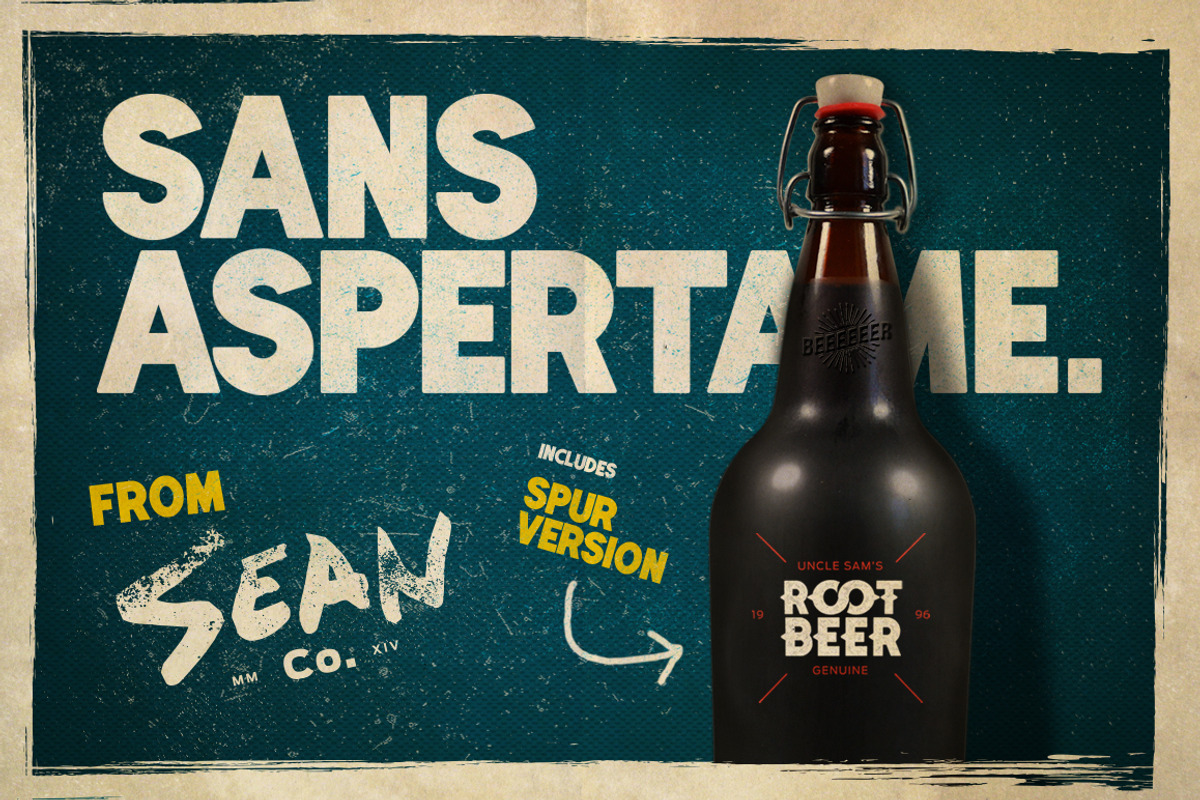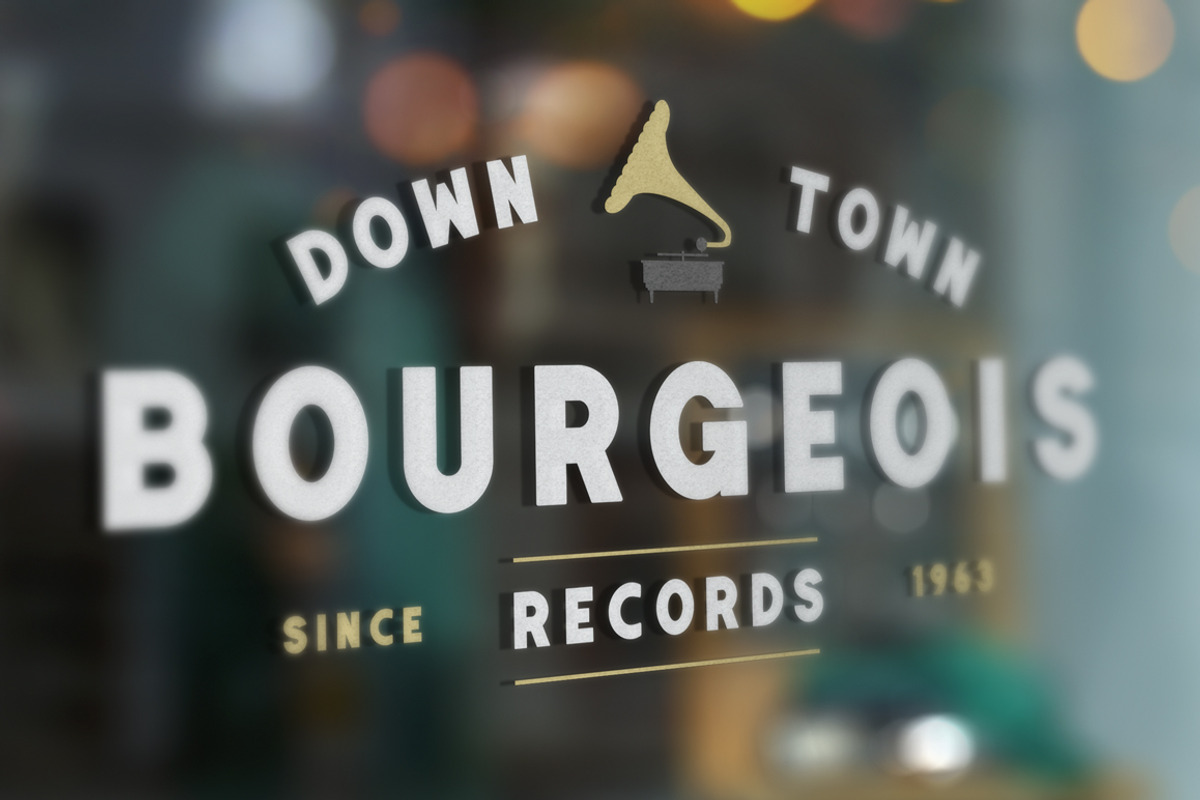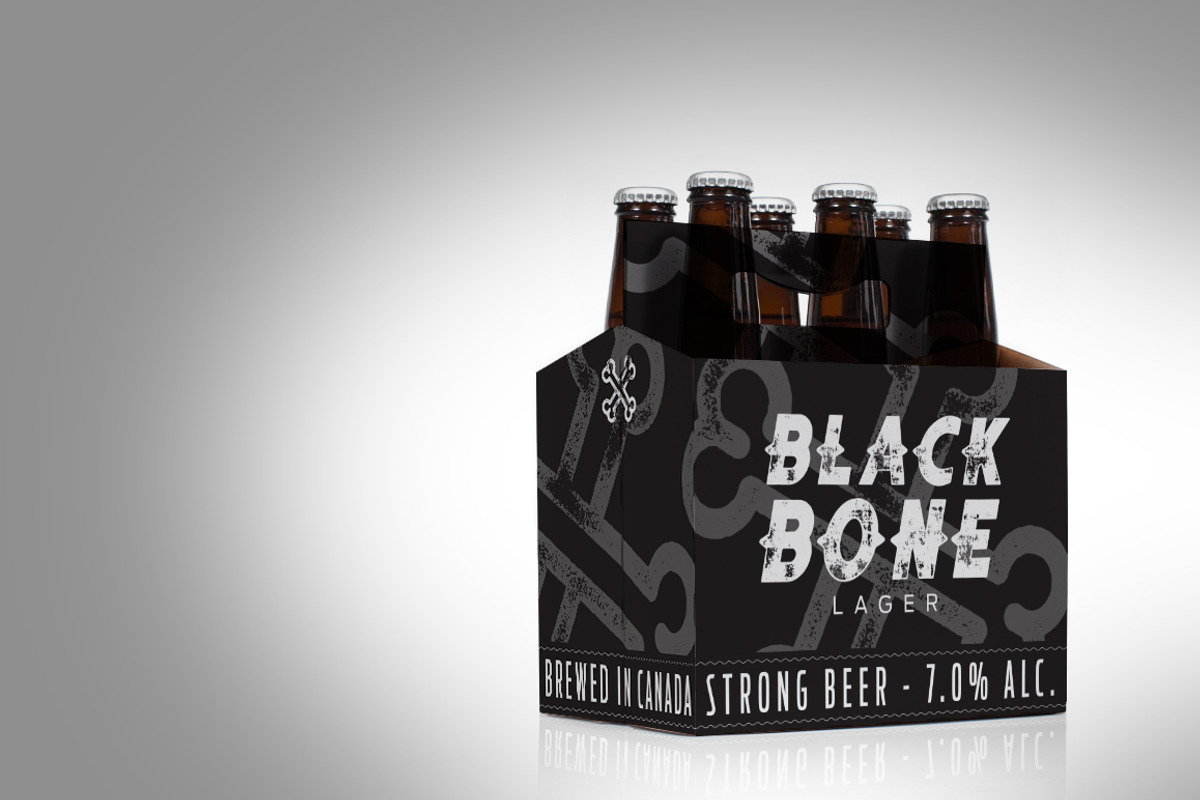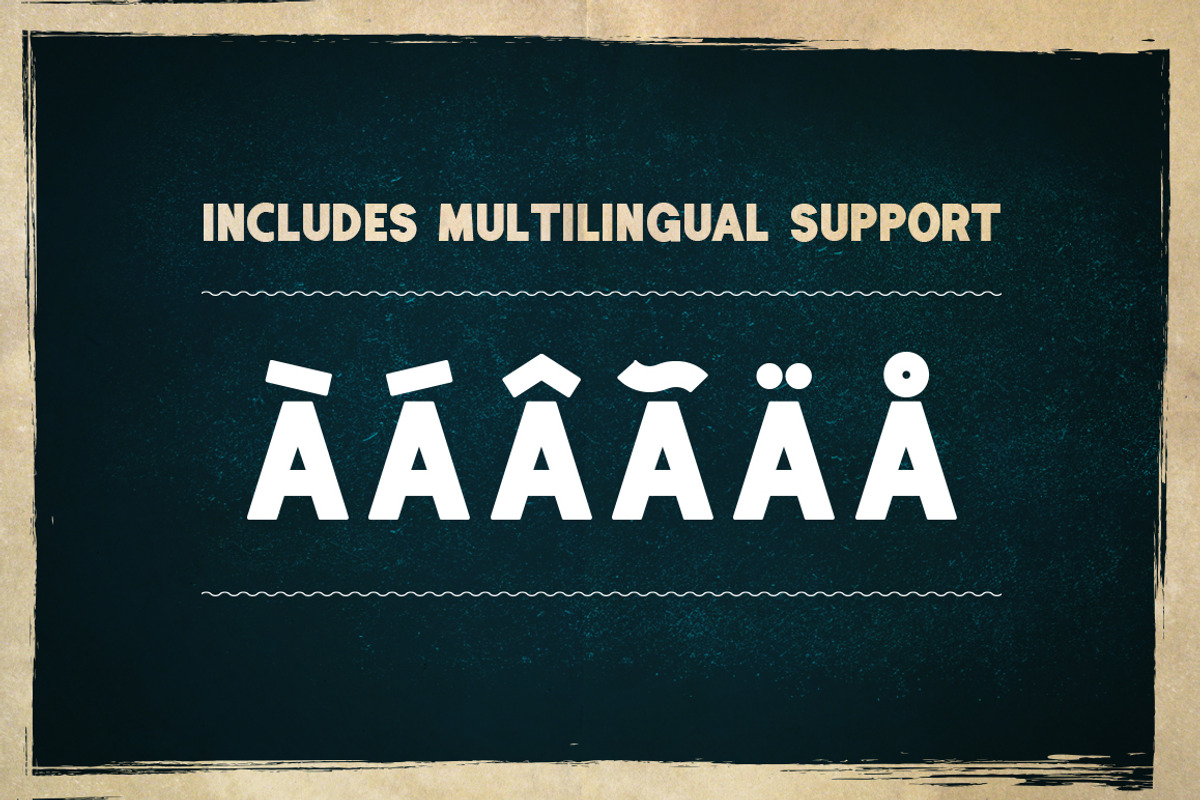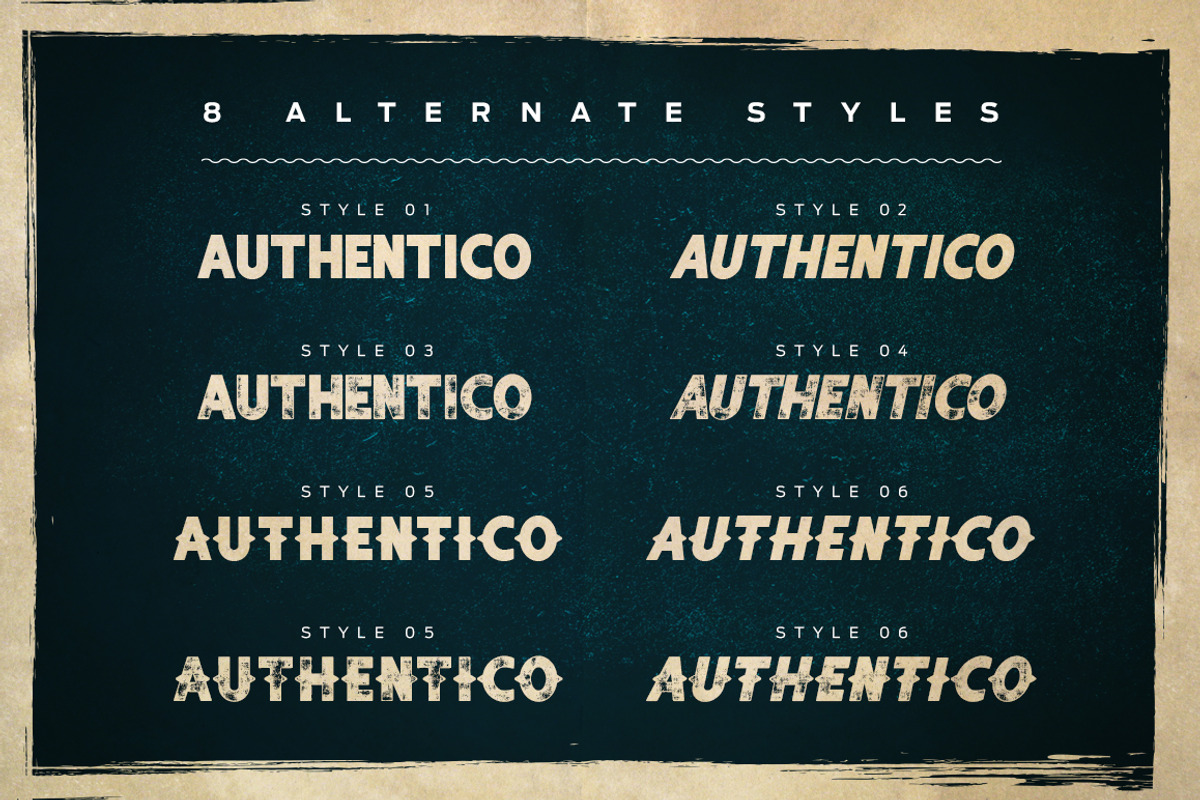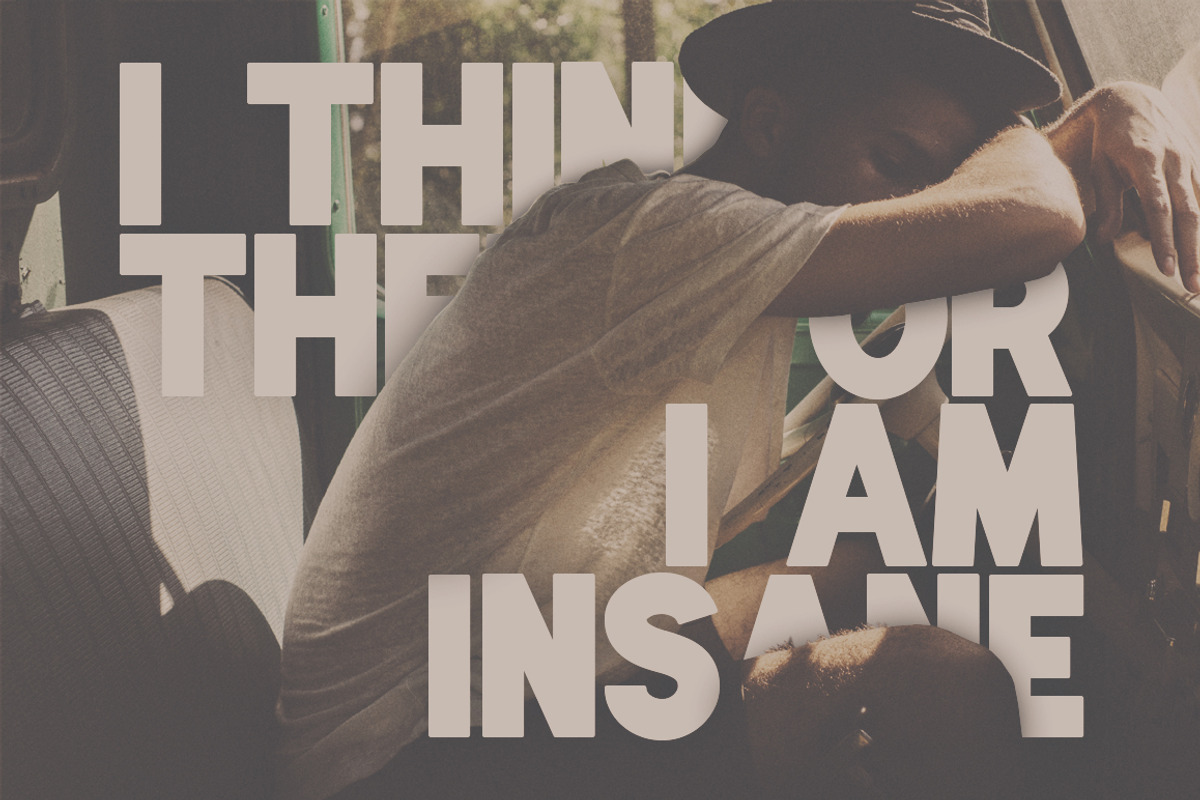
Authentico Display Font
Authentico Display Font by Vintage Type Company is a font selected for branding, posters, packaging, typography.
- Authentico Regular
- Authentico Italic
- Authentico Rough Regular
- Authentico Rough Italic
- Authentico Spurred Regular
- Authentico Spurred Italic
- Authentico Spurred Rough Regular
- Authentico Spurred Rough Italic
Why Authentico Display Font is worth a look
Authentico Display Font by Vintage Type Company fits naturally into Branding, posters, packaging, typography.